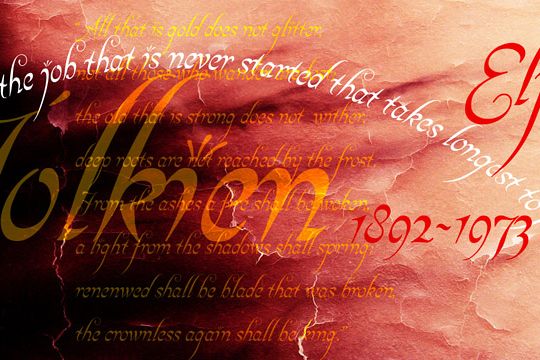
Elfin
A fanciful reinterpretation of the elvish type found inside the ring in J. R. Tolkien’s “Lord of the Rings”.Elfin has a very small x height with large ascenders and descenders. Unlike most scripts, Elfin characters connect from the x height, not the base line.If you're looking for a magical, Disneyesque, fairies-prancing-about type, you need Elfin. Elfin contains upper and lower case letters, old style figures (numbers), punctuation, Western European accents.